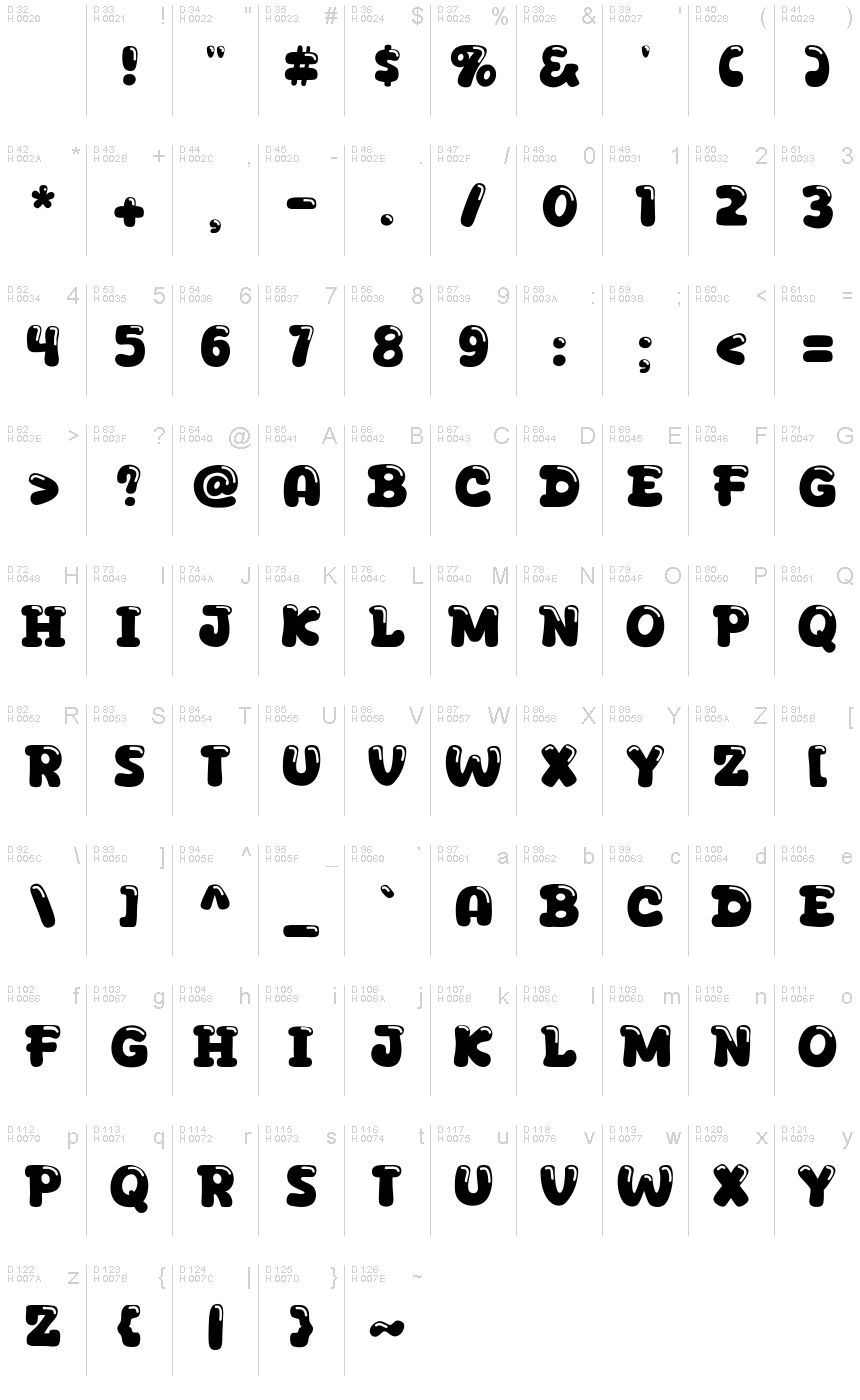
Aqua Wow
AQUA WOW is a bold, playful font that exudes a distinct cartoon-like charm. Crafted by Khurasan, this display typeface boasts exaggerated, rounded forms that lend it an unmistakable sense of whimsy and energy. The letters appear to dance across the page, their thick, expanded strokes conveying a lively, almost bubbly character.
This font's visual appeal lends itself seamlessly to a variety of creative applications, from children's storybooks and toys to vibrant social media graphics and posters. Its bold, attention-grabbing presence makes it an excellent choice for headlines, titles, and other display text that demands to be noticed. Whether used in isolation or paired with complementary typefaces, AQUA WOW is sure to inject a dose of lighthearted fun and character into any design project.